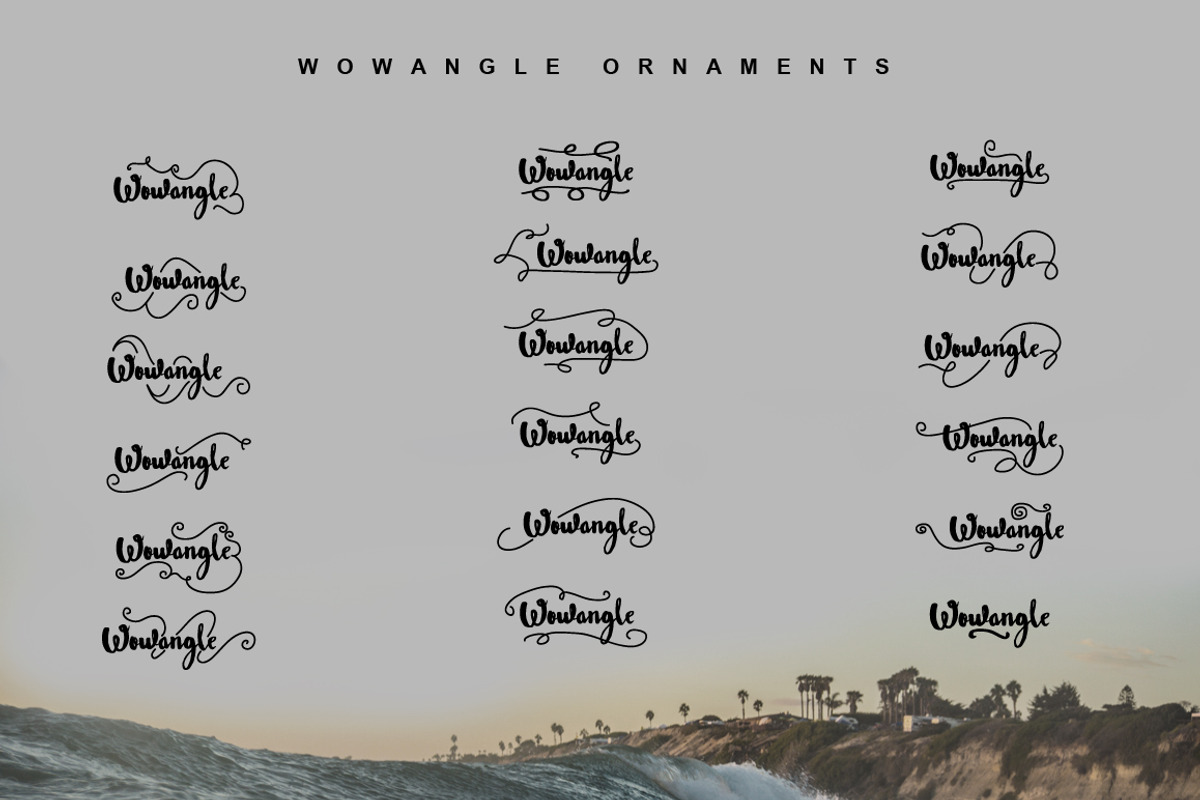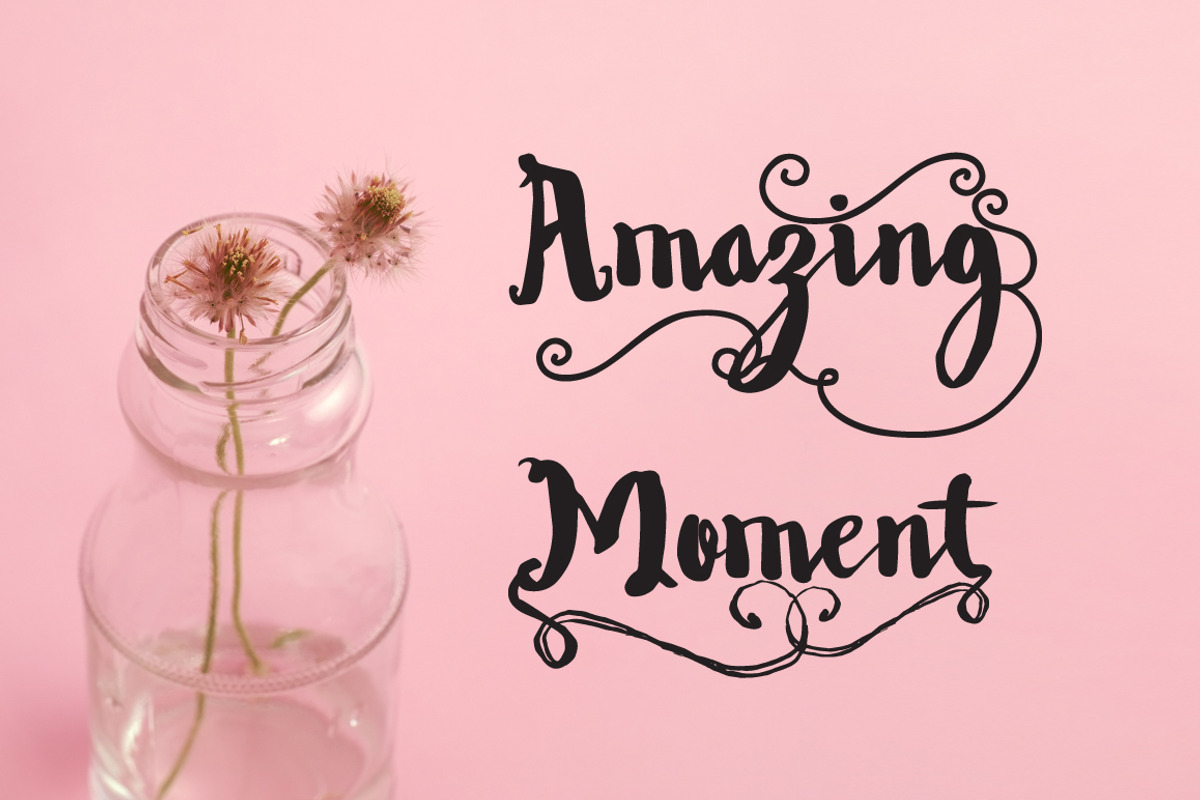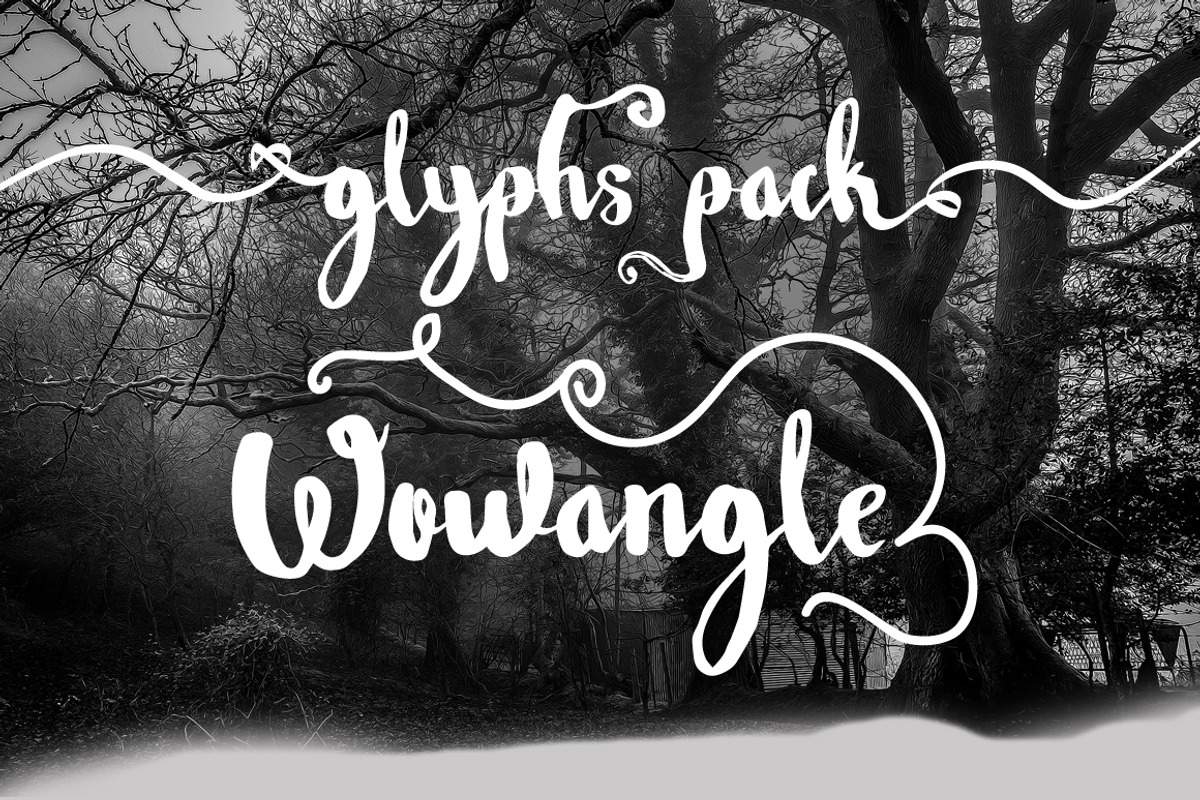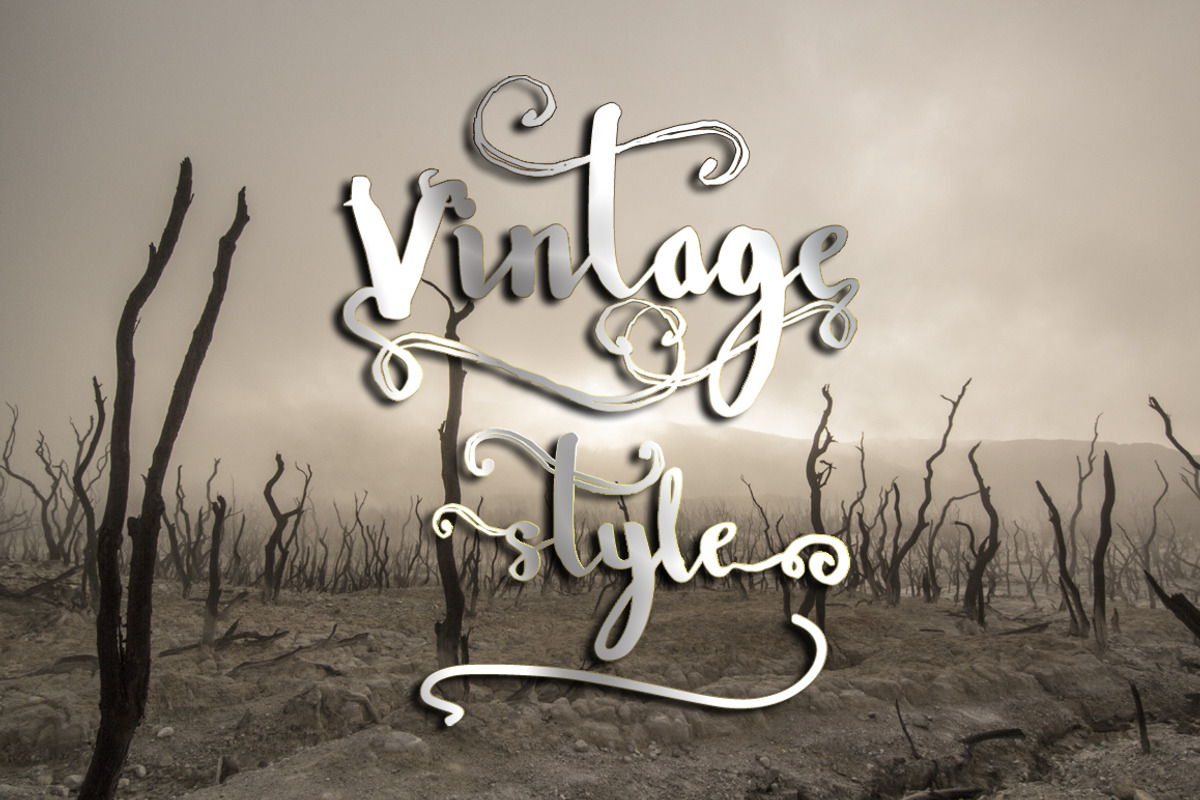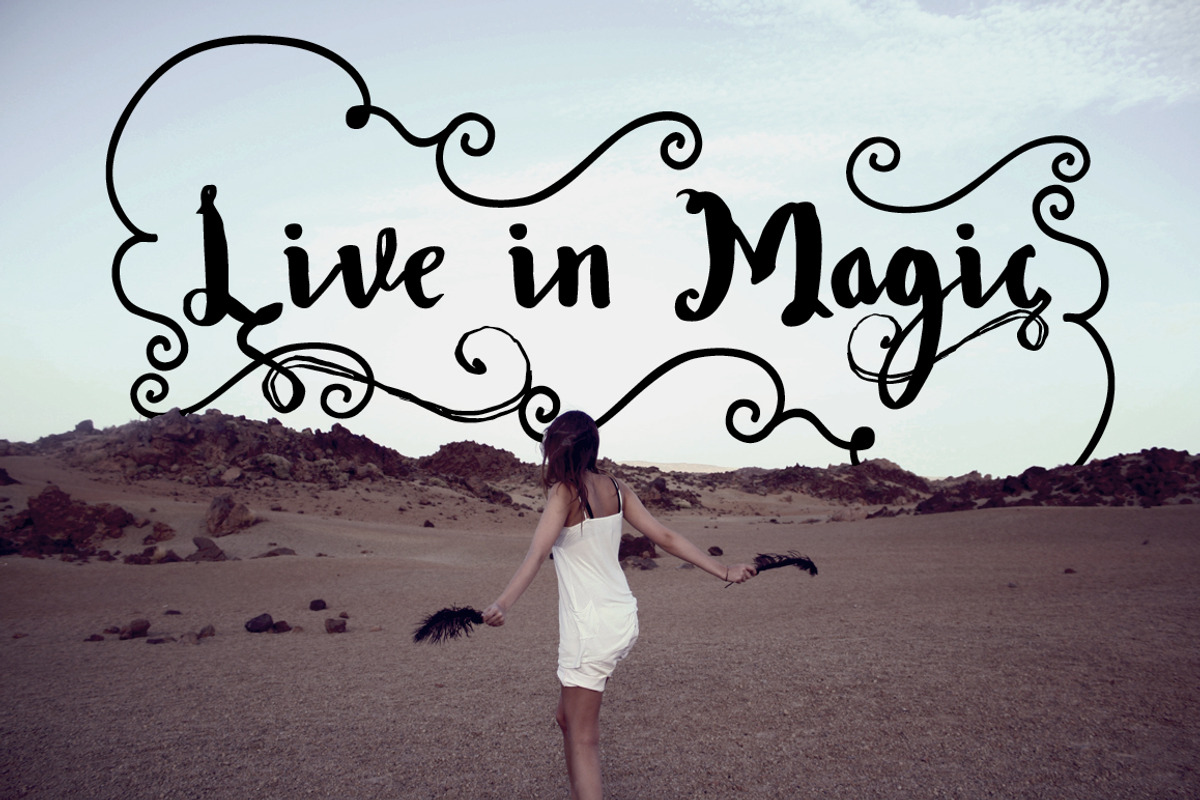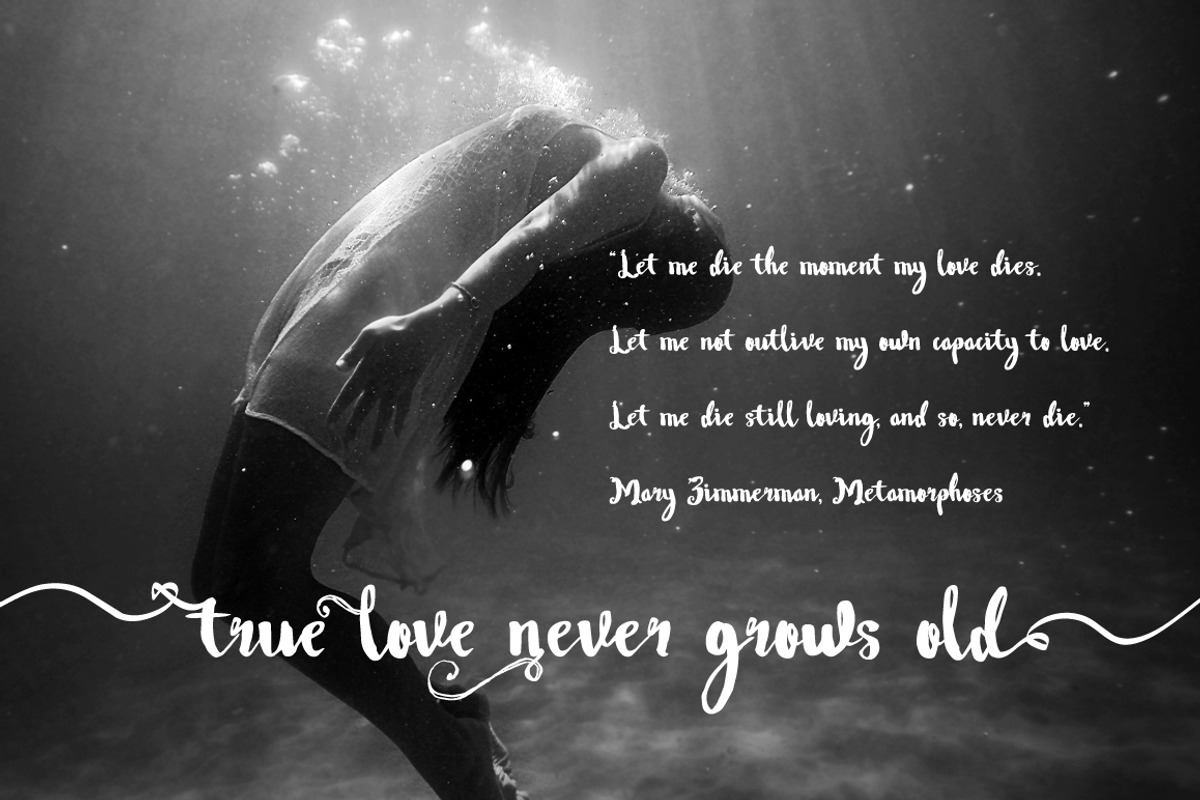
Wowangle Brush Script (Bonus Font)
Wowangle Brush Script (Bonus Font) by FHFont is a font selected for branding, posters, packaging, typography.
- Wowangle Brush Calligraphy
- Wowangle Ornament Calligraphy
- Wowangle SS02 Calligraphy
- Wowangle SS03 Calligraphy
- Wowangle SS04 Calligraphy
- Wowangle SS05 Calligraphy
- Wowangle SS06 Calligraphy
- Wowangle SS1 Calligraphy
- Wowangle Sans Script
- Wowangle Swash Lowercase Calligraphy
Why Wowangle Brush Script (Bonus Font) is worth a look
Wowangle Brush Script (Bonus Font) by FHFont fits naturally into Branding, posters, packaging, typography.